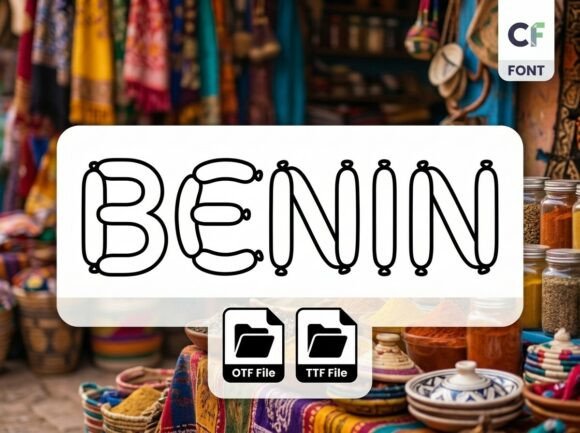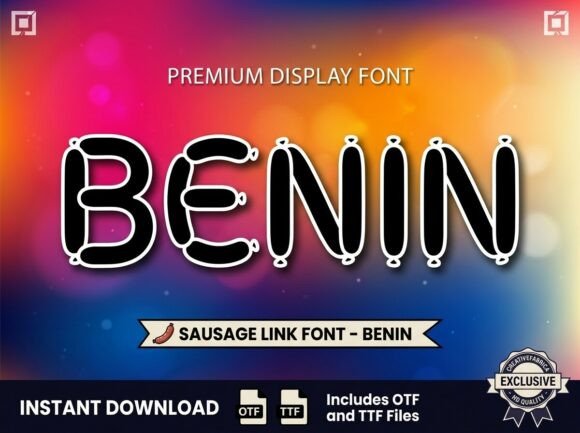
Introducing Benin Font: Savor the Flavor of Your Creative Projects
Are you a designer or crafter looking for a unique and captivating typeface to elevate your creative projects? Look no further than Benin Font, a delectable display typeface that captures the essence of a “savory-and-stylized” soul. This bold and whimsical font is perfect for adding a touch of personality to your designs, whether you’re creating independent charcuterie identities, boutique deli logos, artisan meat packaging, or high-impact social media headers.
The Inspiration Behind Benin Font
Benin Font draws inspiration from the vintage aesthetics of traditional butcher shops, combined with the modern sophistication of gourmet branding. The font’s bold letterforms are uniquely constructed from rhythmic, hand-drawn “sausage link” silhouettes, giving it a distinctive and eye-catching appearance. This innovative design bridges the gap between classic and contemporary styles, making Benin Font a versatile choice for a wide range of creative projects.
Key Features of Benin Font
So, what sets Benin Font apart from other typefaces? Here are some of its key features:
- Heavy Structural Weight: Benin Font boasts a robust and substantial design, making it perfect for creating high-impact headers and titles that demand attention.
- Whimsical Personality: The font’s playful and charming personality shines through in its unique letterforms, adding a touch of warmth and character to your designs.
- Vintage-Inspired Aesthetics: Benin Font’s roots in traditional butcher shop design give it a distinctive, retro flair that’s sure to evoke a sense of nostalgia and authenticity.
- Modern Sophisication: Despite its vintage inspiration, Benin Font is undeniably modern and sleek, making it an excellent choice for contemporary branding and design projects.
Benin Font is an excellent choice for a wide range of creative projects, including:
- Independent Charcuterie Identities: Create a lasting impression with a custom charcuterie logo that showcases your brand’s personality and style.
- Boutique Deli Logos: Elevate your deli’s branding with a unique and eye-catching logo that sets you apart from the competition.
- Artisan Meat Packaging: Add a touch of sophistication and elegance to your meat packaging with Benin Font’s bold and stylish letterforms.
- Social Media Headers: Make a statement on social media with Benin Font’s high-impact headers, perfect for culinary and curated content.
Tips for Using Benin Font
To get the most out of Benin Font, here are some tips for using it effectively in your designs:
- Experiment with Color: Benin Font looks stunning in a range of colors, from rich reds and pinks to deep blues and greens. Don’t be afraid to experiment and find the perfect hue for your design.
- Play with Texture: Add depth and interest to your design by incorporating texture and patterns into your Benin Font typography.
- Mix and Match: Combine Benin Font with other typefaces and design elements to create a unique and visually appealing design.
In conclusion, Benin Font is a one-of-a-kind typeface that’s sure to add a touch of personality and style to your creative projects. With its bold letterforms, whimsical personality, and vintage-inspired aesthetics, Benin Font is the perfect choice for designers and crafters looking to make a lasting impression. Whether you’re creating independent charcuterie identities, boutique deli logos, artisan meat packaging, or high-impact social media headers, Benin Font is the premier choice for adding a savory-and-stylized touch to your designs.